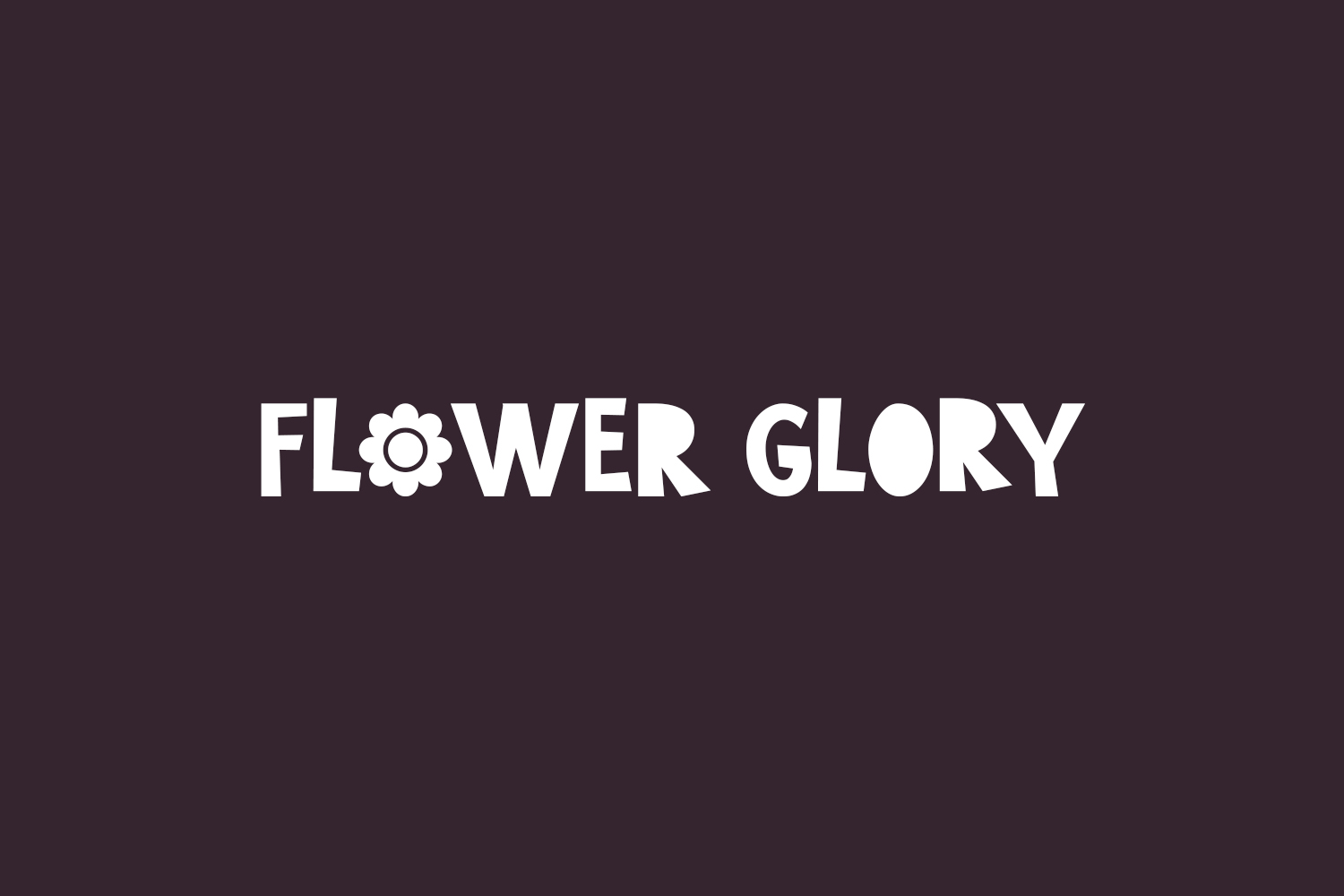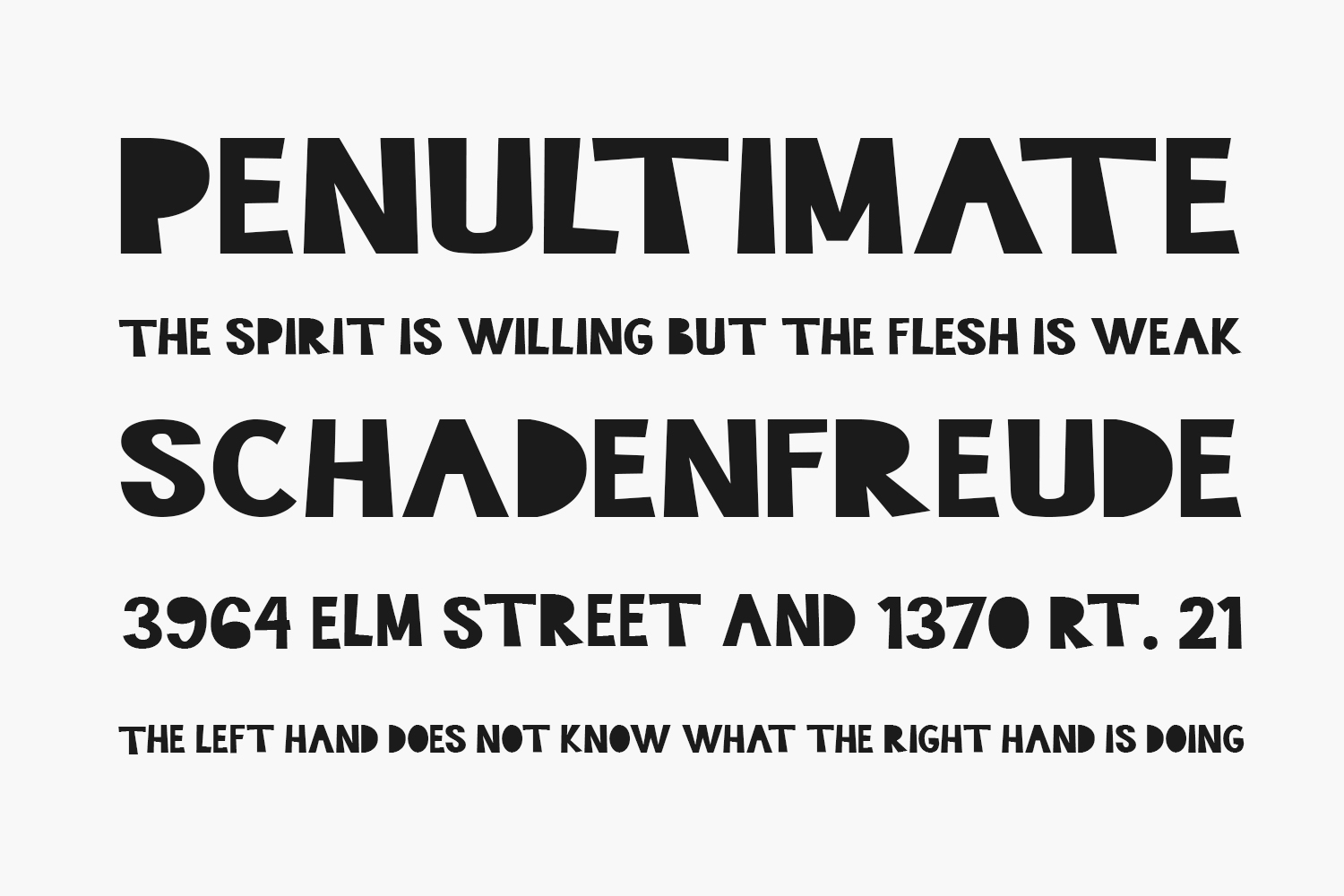
Flower Glory Free Font is a lively and adorable display typeface, eager to enhance your design projects. It’s perfect for use in quotes, cover designs, merchandise, posters, creative posts, birthday cards, and beyond.
Designed by Prioritype Co